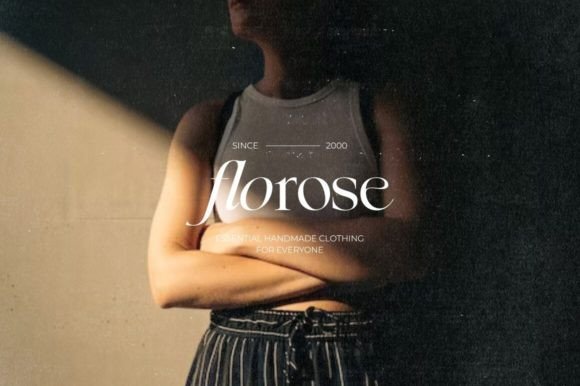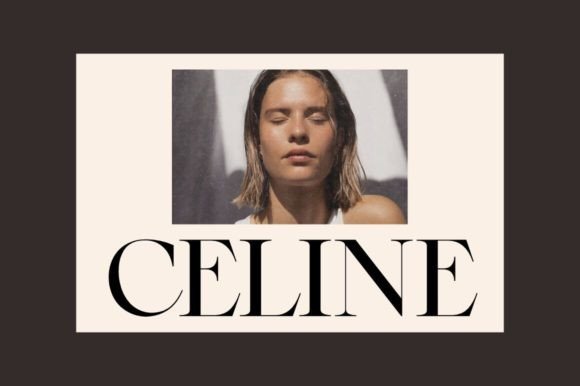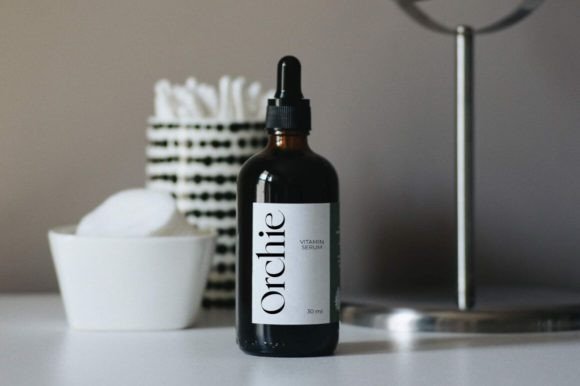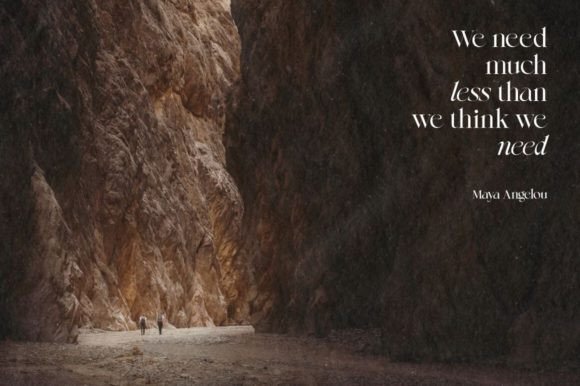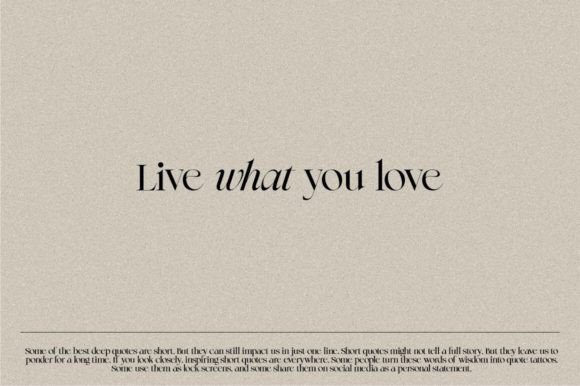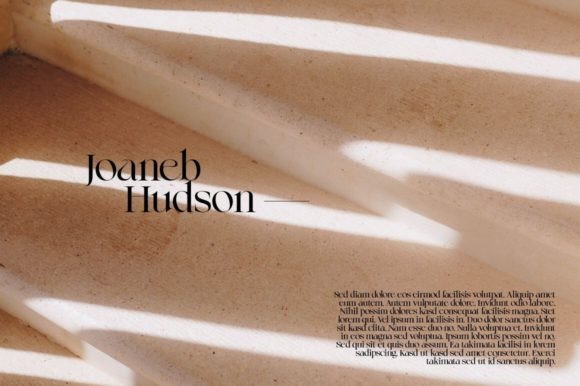
Introduction to Rofane Font
As designers, we’ve all been there – staring at a blank canvas, searching for the perfect font to bring our creative project to life. It’s that moment when you need a design resource that speaks volumes, yet says nothing at all. Enter the Rofane Font, a sophisticated and modern typeface that exudes timeless charm and elegance. With its tight kerning and spacing, it’s the perfect addition to any high-quality design project.
Whether you’re working on a luxurious magazine layout or crafting a logo for a new brand, the Rofane Font is sure to add a touch of luxury and sophistication. And the best part? It’s available for free download, making it an accessible design resource for creatives of all levels.
Key Features of Rofane Font
- Unique and stylish design, ideal for adding a touch of elegance to any creative project.
Honest Review: Rofane Font
I recently had the opportunity to work with the Rofane Font, and I must say it’s been a game-changer for my design projects. This high-quality font is a fantastic design resource that offers a lot of versatility. What works well is its clean and modern aesthetic, making it perfect for a variety of creative projects, from branding and logos to web design and digital art.
One of the standout features of the Rofane Font is its transparent background, which allows for seamless integration with any design element. I’ve found it particularly useful for creating eye-catching visuals and bold typography. Additionally, the font is available for free download, making it an excellent option for designers on a budget.
- ✨ Clean and modern aesthetic
- ✨ High-quality design
- ✨ Transparent background
Overall, I’m thoroughly impressed with the Rofane Font and would highly recommend it to designers looking for a high-quality, versatile font for their creative projects. Just be aware of its limitations and use it accordingly.
Tips for Getting the Most Out of Rofane Font
Experiment with different font combinations and styles to create a unique look. Use the font in conjunction with other design elements, such as images and graphics, to enhance the visual appeal of your project.
Common Use Cases for Rofane Font
The Rofane Font is suitable for a wide range of creative projects, including branding, marketing materials, and digital content. Its high quality and versatility make it an excellent design resource for designers and non-designers alike.